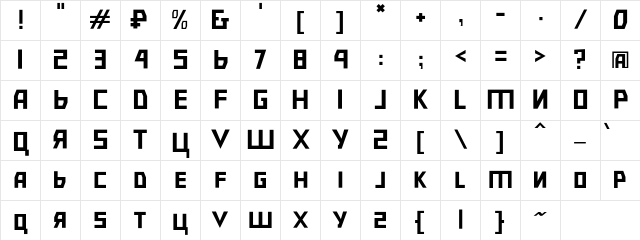
Complete Bolshevik SL glyph index. Displaying only characters natively supported by Bolshevik SL font.
Bolshevik is a composed and adaptable typeface that performs quietly and consistently across a wide range of design contexts.